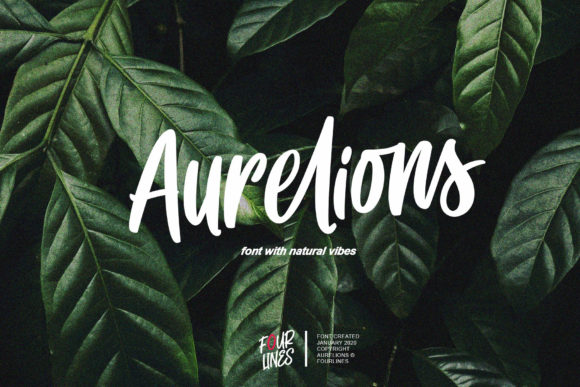
Embrace the allure of Aurelions Font, a breathtaking handwritten masterpiece that will ignite your branding with unmatched grace. Its delicate strokes and refined curves dance across the page, weaving a tapestry of elegance that will captivate your audience.
Indulge in Aurelions's exquisite details, where every letter is a work of art. Its PUA encoding grants you effortless access to a treasure trove of glyphs and swashes, empowering you to unleash your creativity and elevate your designs to new heights.
Unleash the power of Aurelions to:
- Craft mesmerizing logos that demand attention
- Design enchanting invitations that leave a lasting impression
- Create captivating social media graphics that ignite engagement
- Embellish your website with an air of sophistication
- Transform your branding materials into timeless keepsakes
Immerse yourself in the captivating embrace of Aurelions Font. Its delicate strokes and timeless appeal will elevate your branding to new heights, leaving an indelible mark on the hearts of your audience.